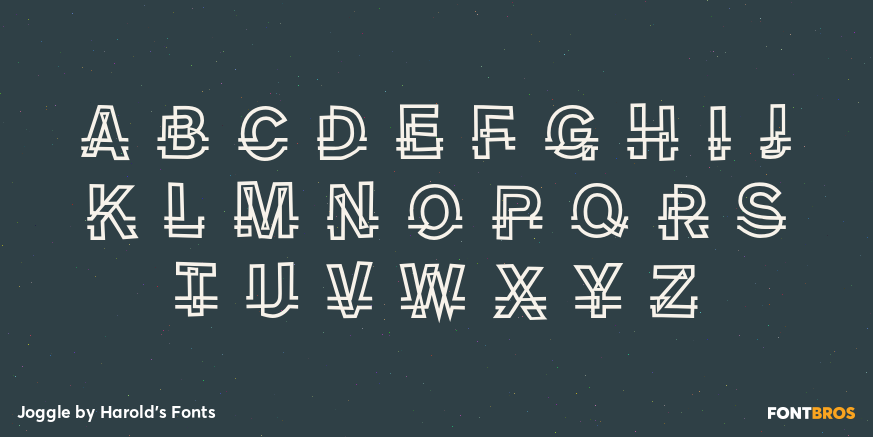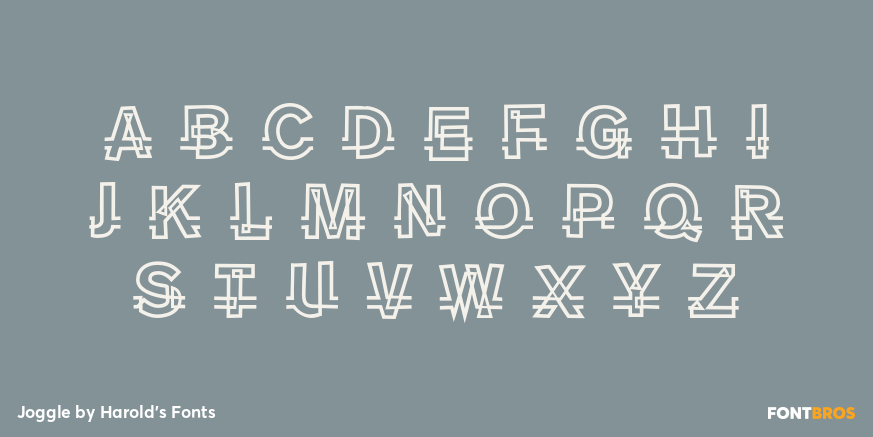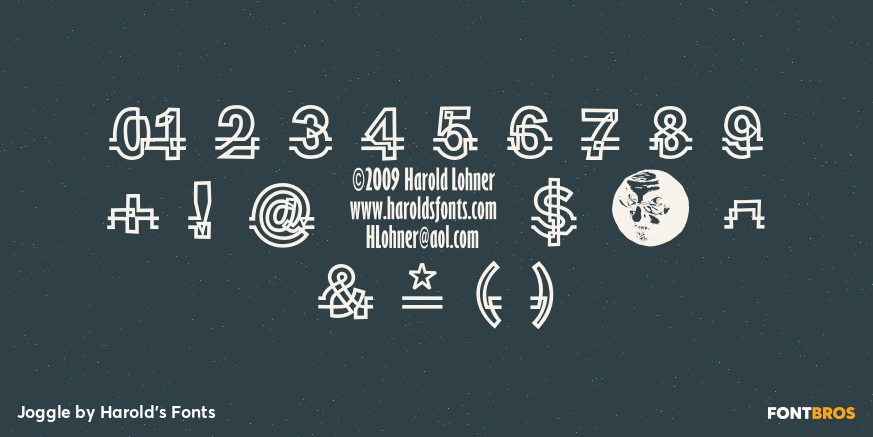
Joggle
Font Family by Harold's Fonts
Buy NowJOGGLE has a jazzy, hand-drawn feel, inspired by a book jacket that I once saw, half remembered, and couldn't find again. The outlined letters link up as you type. There are end caps, blank spaces, and flourishes to finish up names and headings, and two of each letter so you have a little more variety. A second font provides a loose fill that be placed behind the outlines for another effect.